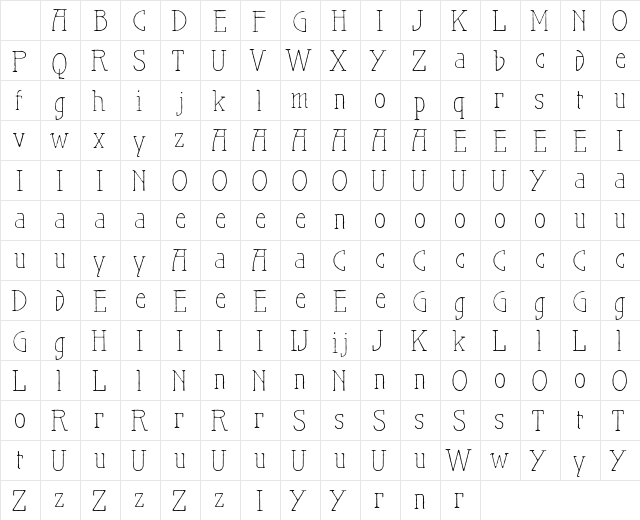
Maiers Nr.21 Pro Light
Foundry: ingoFonts Augsburg, Ingo Zimmermann. Aus: Schriften=Sammlung f￿r Techniker. Herausgegeben von Karl O. Maier. Ravensburg. Verlag von Otto Maier. Schrift Nr
Designer: Ingo Zimmermman, Karl O. Maier
Design Context for Maiers Nr.21 Pro
Maiers Nr.21 Pro is a composed and adaptable typeface that performs quietly and consistently across a wide range of design contexts. Its slender proportions lend an understated elegance to any composition.